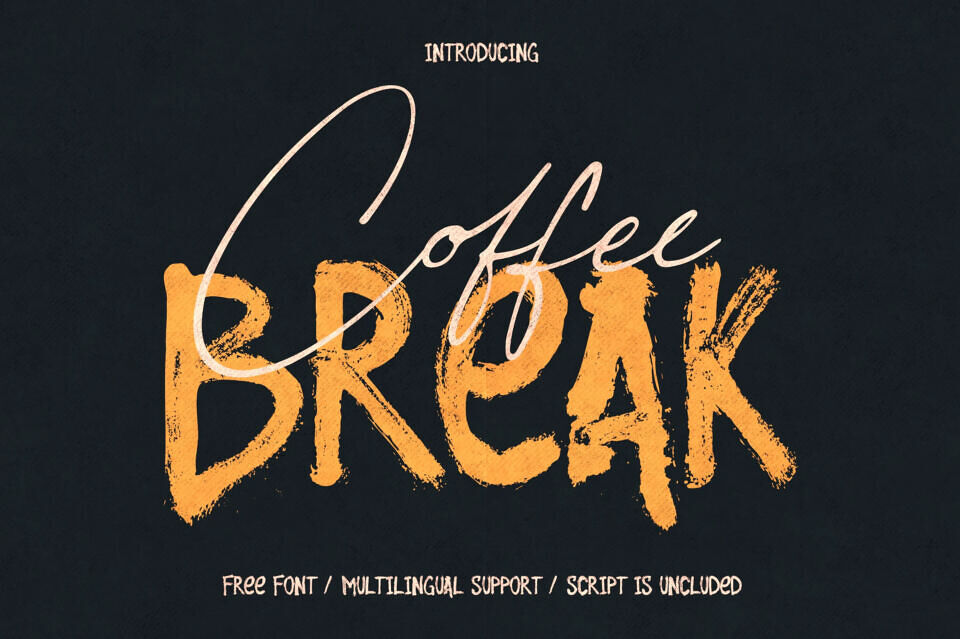
Coffee Break Font Duo
Coffee Break Font Duo is a charming handwritten and script pairing that blends casual elegance with a playful touch. Featuring smooth, rounded strokes and slightly irregular letterforms, it delivers a natural, handcrafted feel perfect for modern designs.
The duo style adds versatility, combining expressive script with a complementary font for balance. Ideal for branding, logos, social media, and invitations, it creates a warm, friendly, and eye-catching aesthetic.